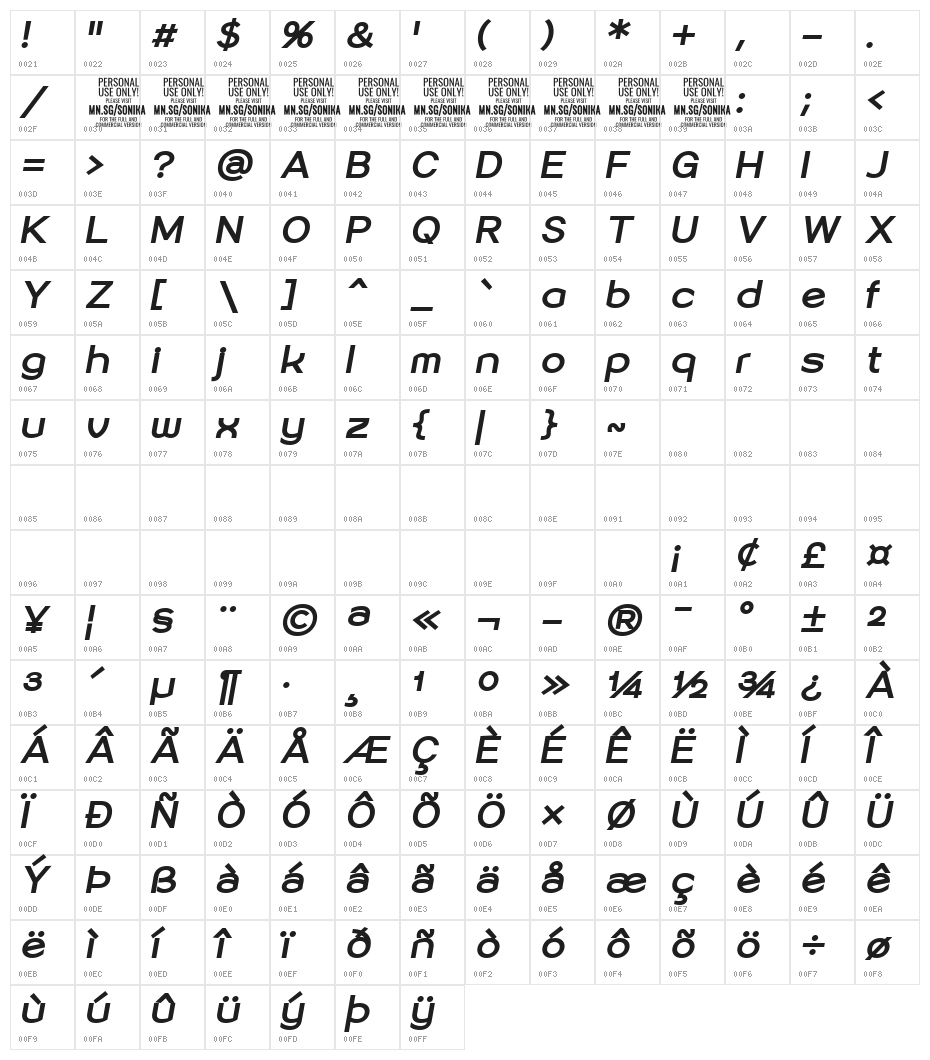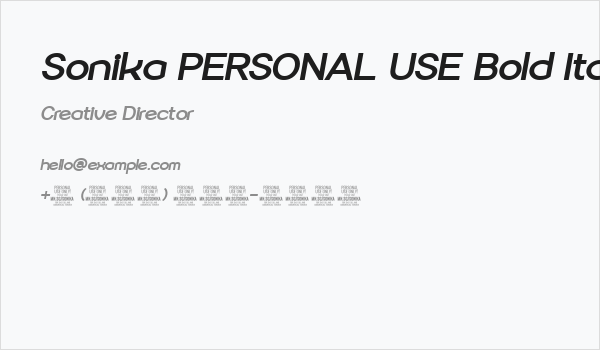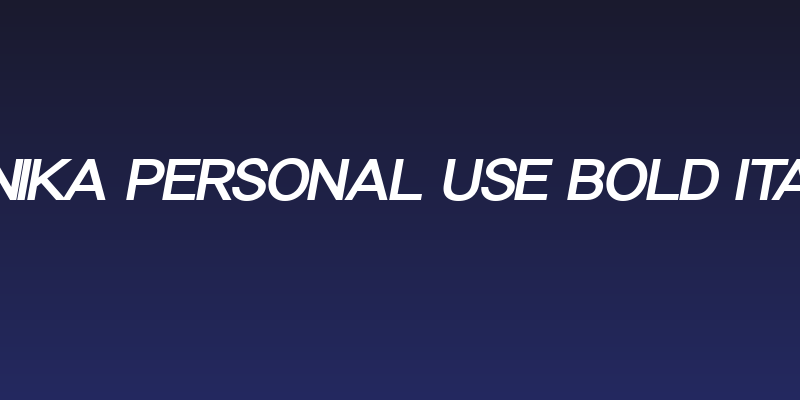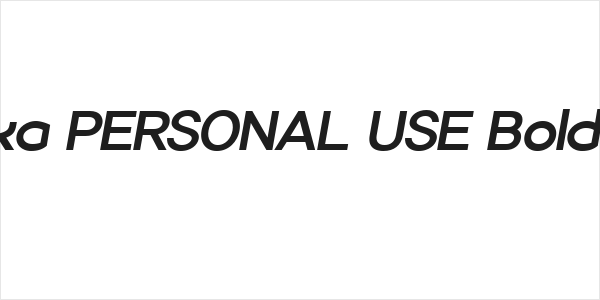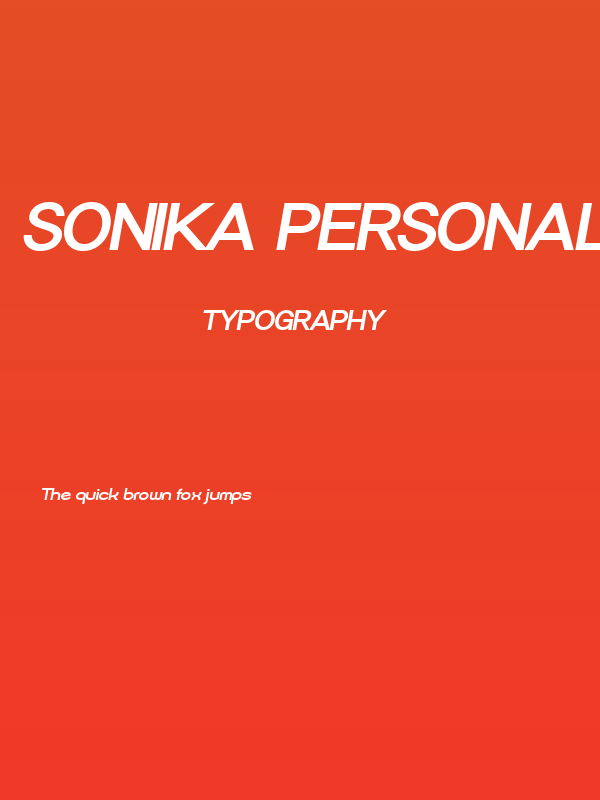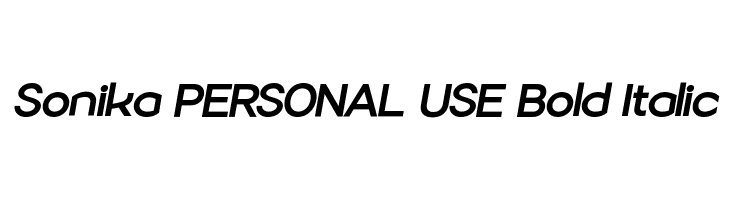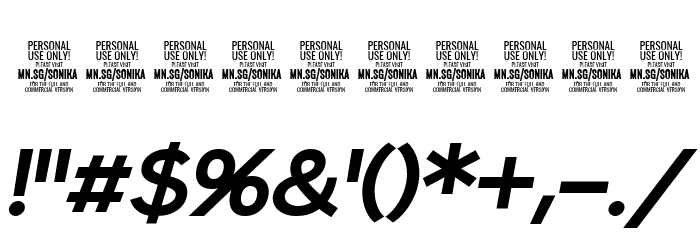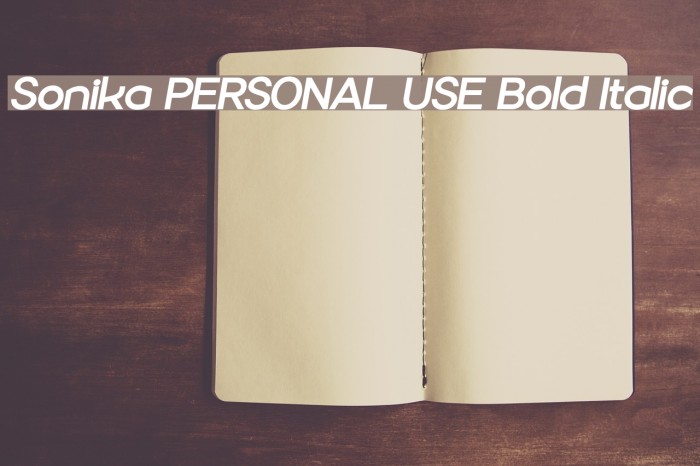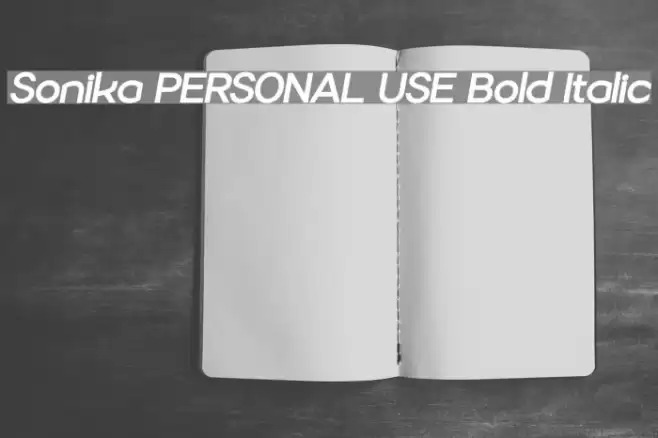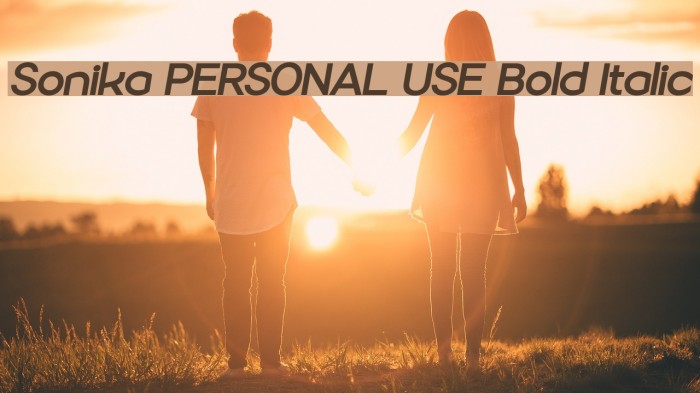
Sonika PERSONAL USE Bold Italic Font
Sonika PERSONAL USE Bold Italic Description
This font features a bold and italicized style, characterized by its clean and modern appearance. The letters are slightly slanted, giving a dynamic and forward-moving feel. The strokes are consistent in weight, providing a uniform look across all characters. The uppercase and lowercase letters maintain a cohesive design, with rounded edges that soften the overall appearance. The numerals and special characters are designed to match the letterforms, ensuring a harmonious look throughout. This font is suitable for making a strong visual impact while maintaining readability.
| Use Case | Headlines, Logos, Branding |
| Proposed Projects | Ideal for branding, advertising, headlines, and digital media projects where a modern and impactful look is desired. |